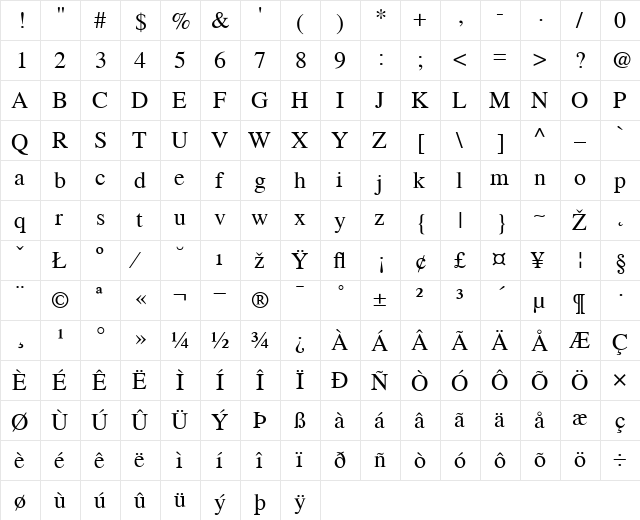
Times Regular Font Preview
Times Regular
Design Context for Times Typeface
Times is a composed and adaptable typeface that performs quietly and consistently across a wide range of design contexts.